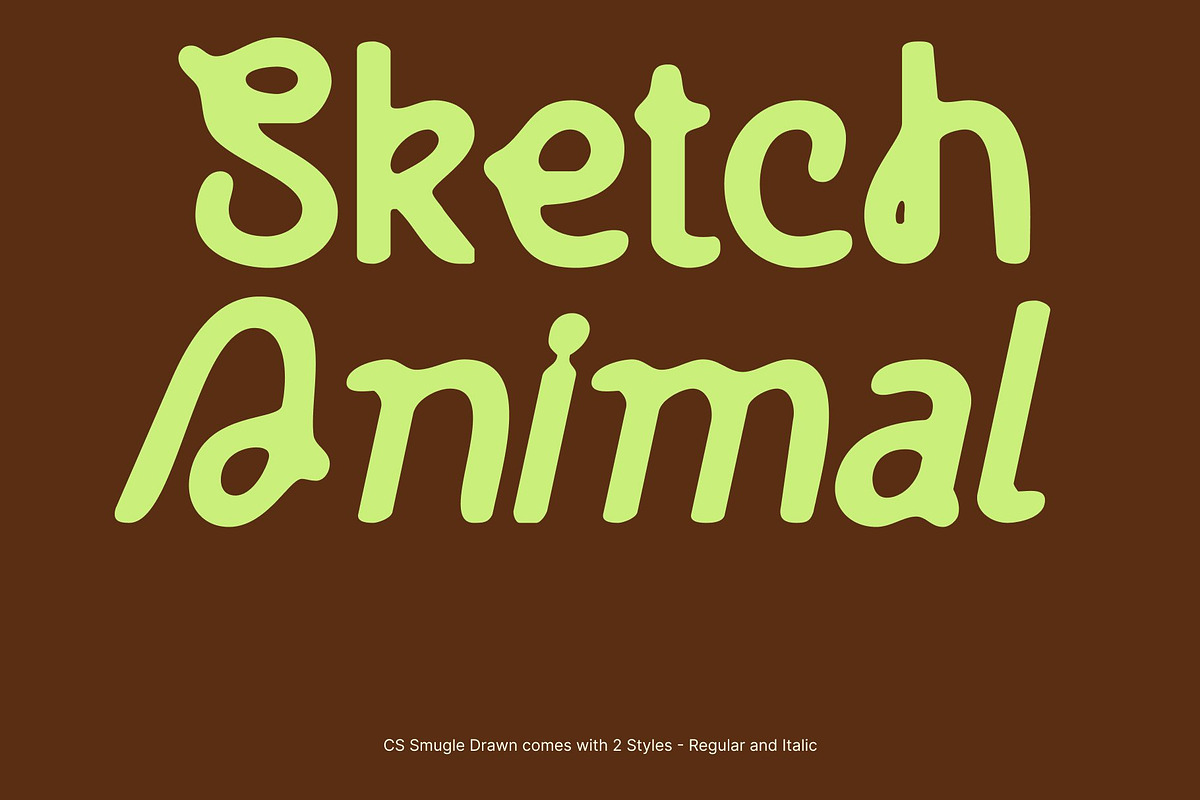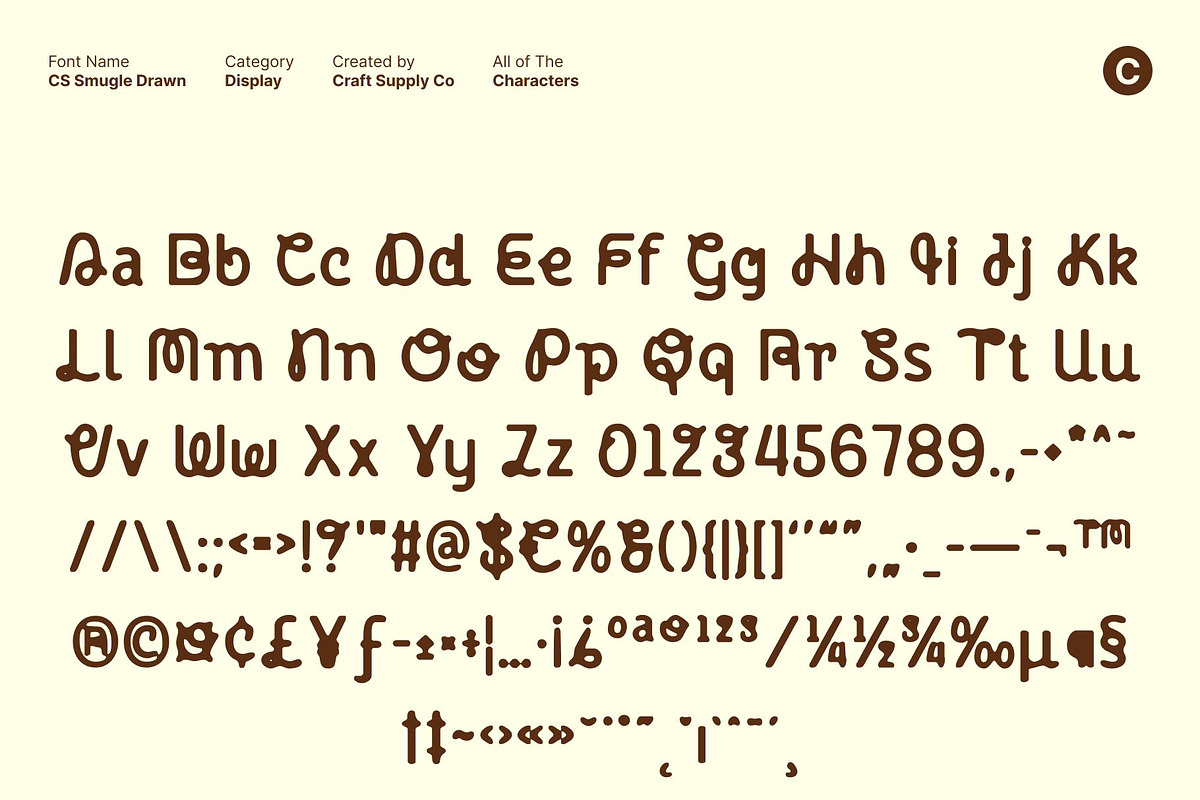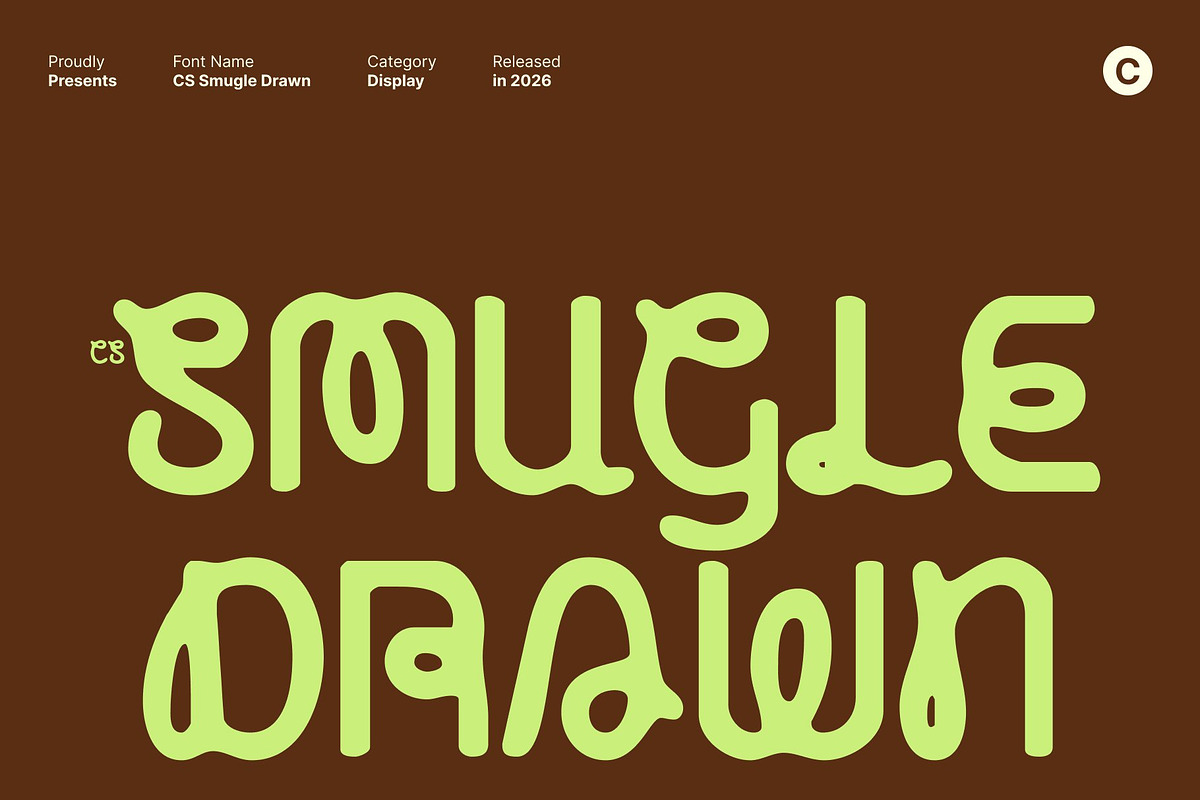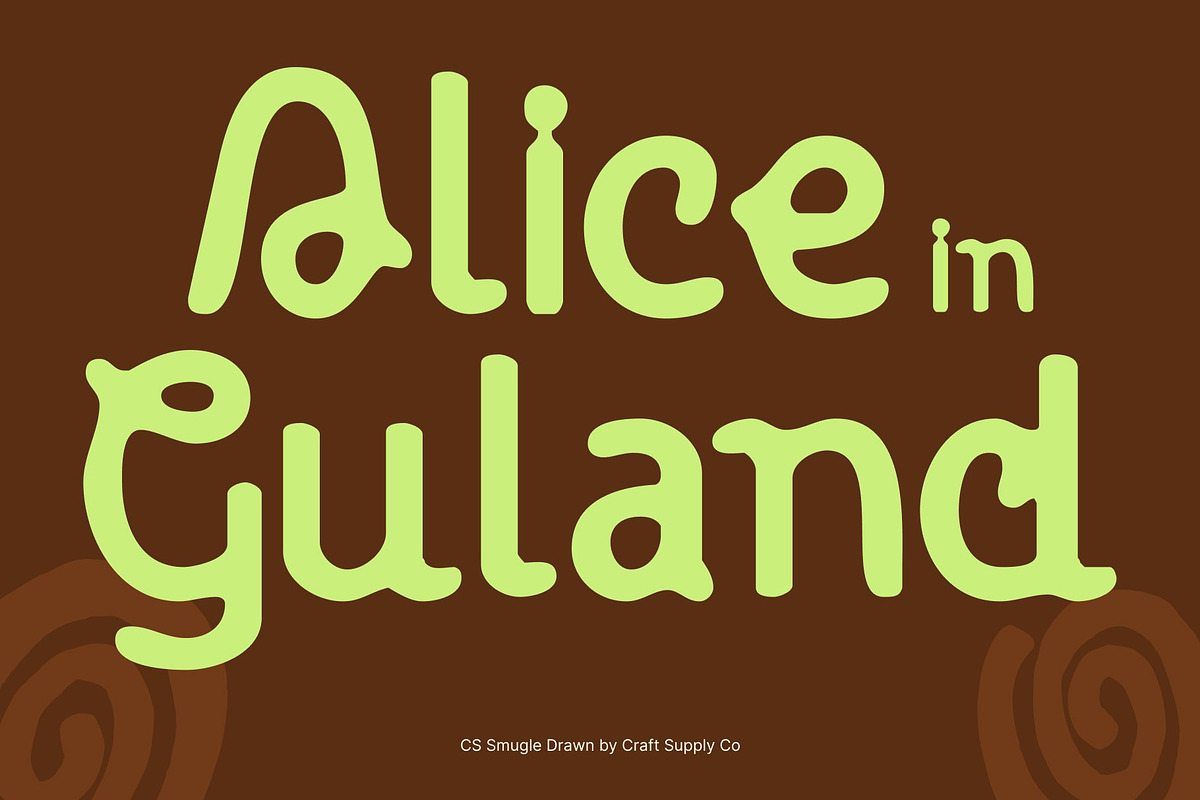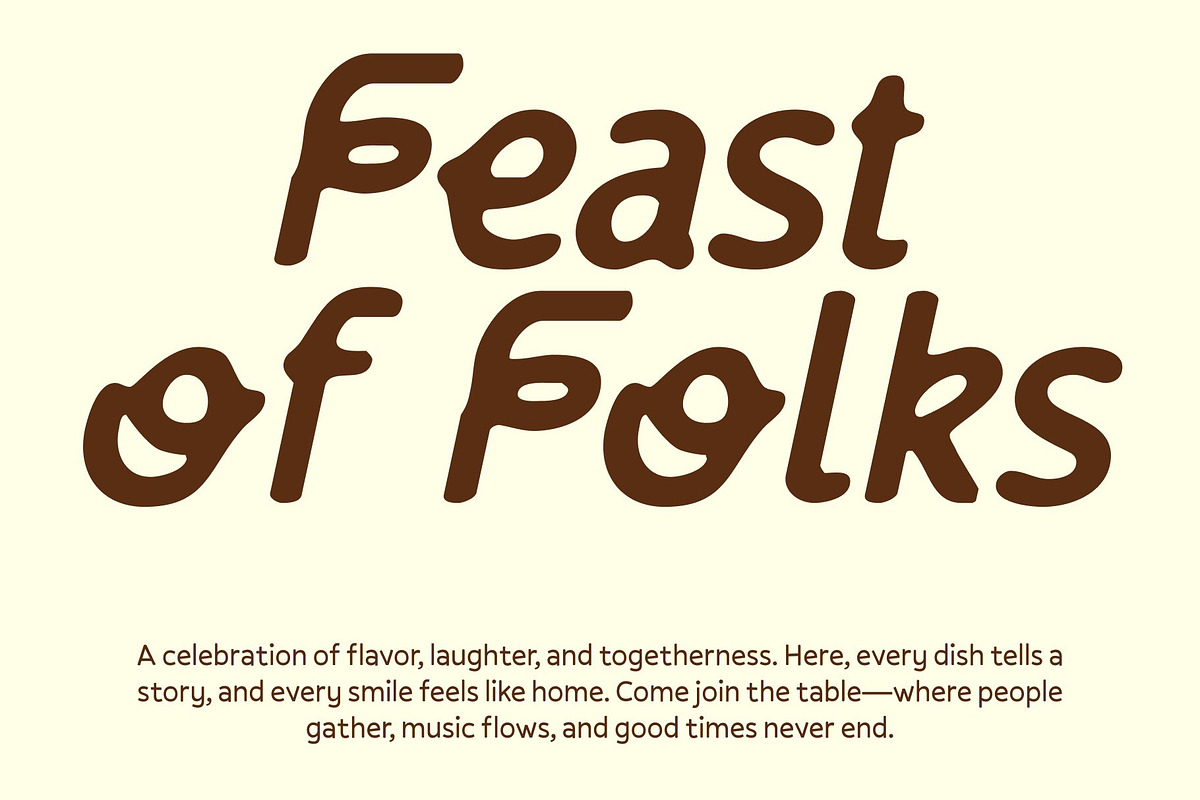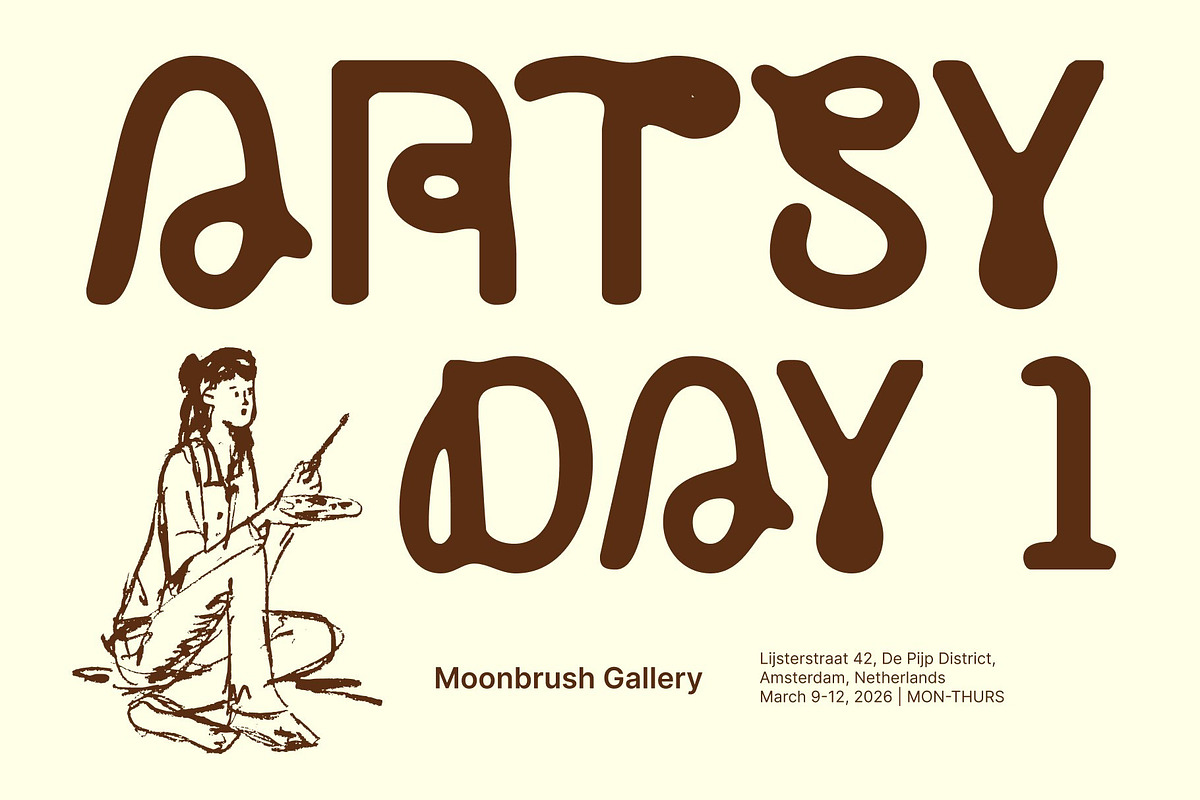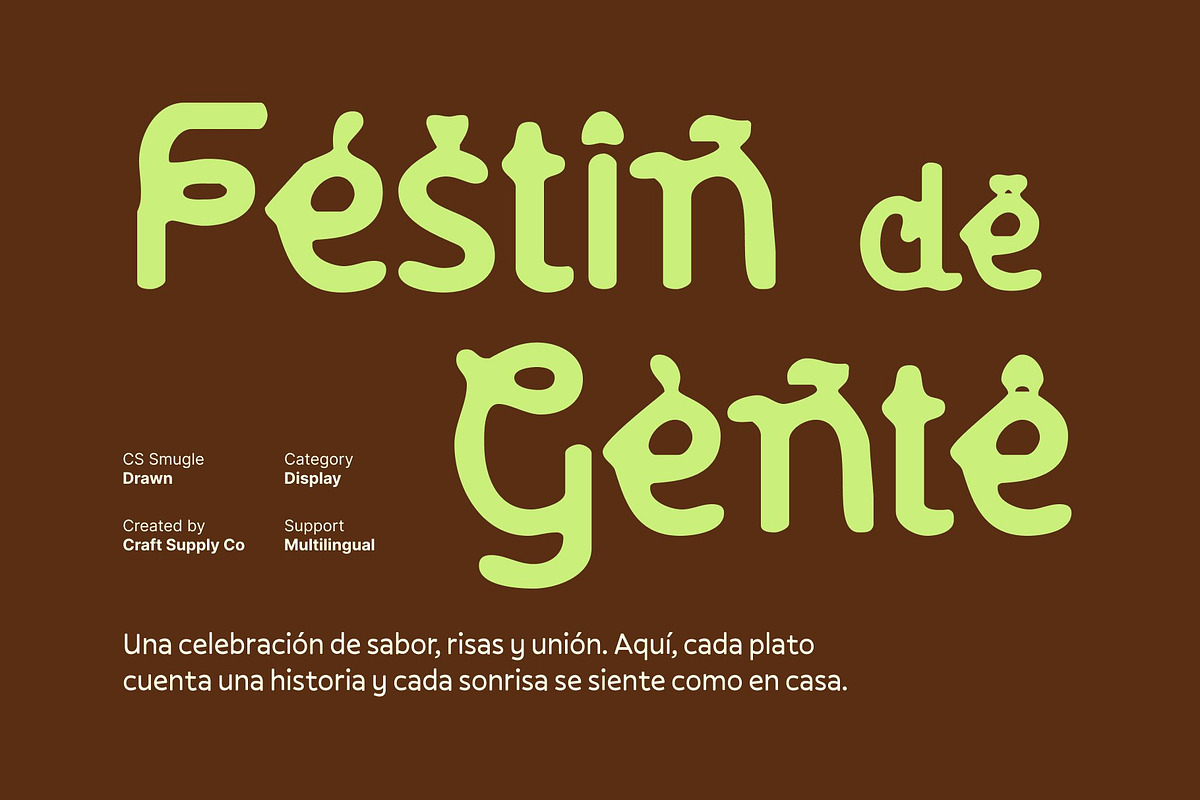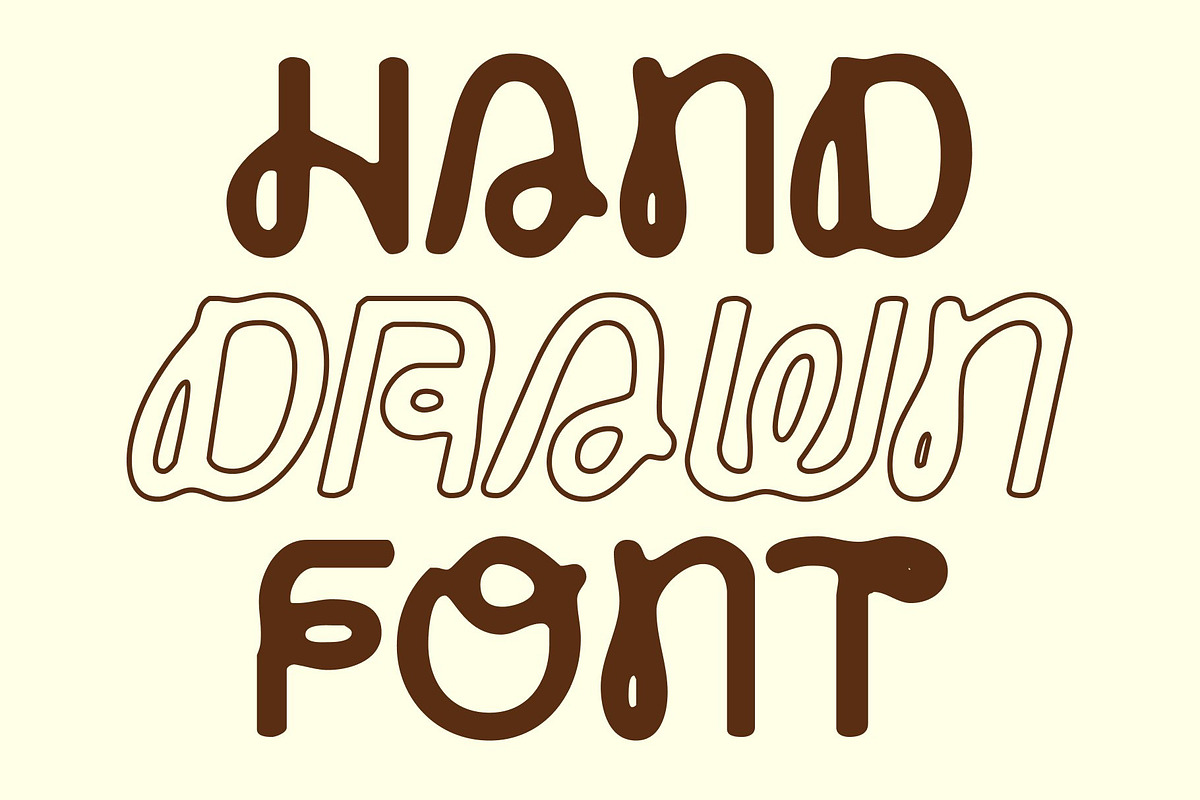
CS Smugle Drawn
CS Smugle Drawn – Modern Experimental Sans Serif with Artistic Flair
Distinctive Design with Quirky Personality This is a playful experimental sans serif that turns every letter into a work of art. Its hand-drawn effect gives each character unique irregularities and organic texture, adding a lively, inventive quality. The font’s cheerful, unconventional style makes every word stand out with personality and movement.
Innovative Letterforms for Creative Expression Blending modern sans serif clarity with whimsical, hand-crafted quirks, this font encourages typographic experimentation. Subtle variations, uneven strokes, and playful distortions give your designs a tactile, humanized feel, making it perfect for projects that demand originality and artistic energy.
Perfect for Playful Branding and Visual Statements Ideal for posters, logos, editorial layouts, and creative branding, this font adds impact and charm. Its textured, drawn forms capture attention while conveying joy and spontaneity, ensuring that every project feels energetic, memorable, and full of life.
Versatile for Bold and Artistic Projects Despite its experimental character, this font remains highly adaptable. It works seamlessly across print and digital media, making it perfect for imaginative, modern projects. Its combination of expressive drawn details and playful sans serif structure allows designers to create designs that are both unique and visually engaging.